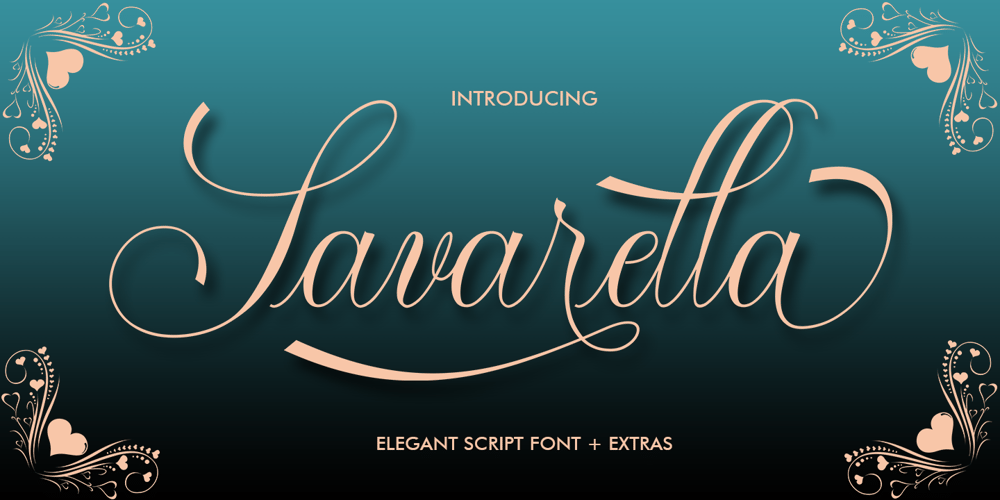
Savarella Font Family was designed by Muhammad Rayyan and published by Slex Studio. Savarella contains 2 styles and family package options. LOVE angelo is a beautiful Font Duo that’s perfect for branding, wedding invitations, and other romantic projects.Font Features:-Lowercase beginning and end swash-lowercase swash up and down-ligature-1 multilingual Serif font.All the features and special characters of this font are included in one file. So that it is easily accessible by using programs or software that support opentype such as Microsoft Word, Excel, Adobe Illustrator, Adobe Photosop, and Adobe Indesign). This font is also very easy to use as it is compatible for all software even for supported non-opentypes.Are you wondering how to find out a special feature or character? Dont worry. You will get a guide with the file if you download this font.Please send a message if you have any questions or concerns, and feel free to say hi on Instagram: https://www.instagram.com/slex_studio/